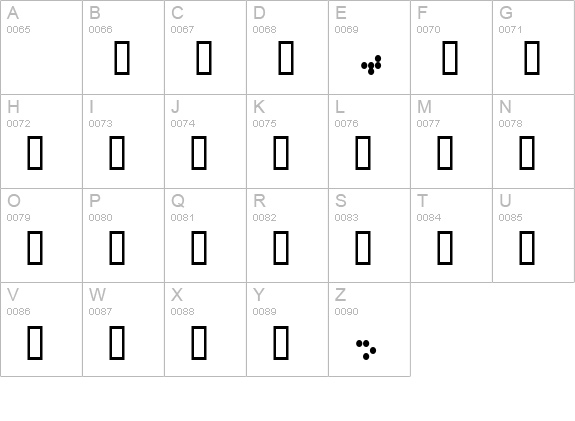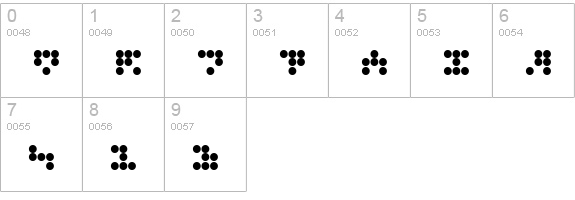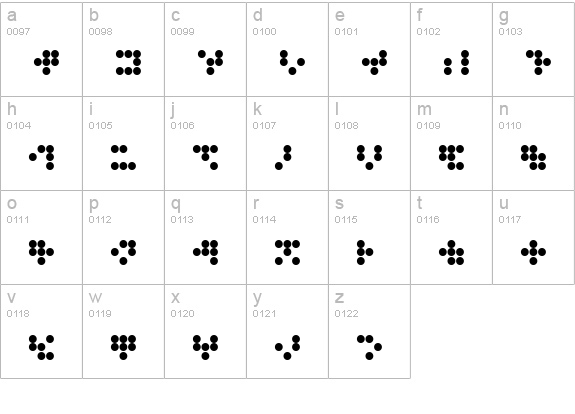
CIRCULAR9 J Font Details
CIRCULAR9 J font is a modern and stylish typeface that exudes sophistication and elegance. Its sleek and rounded design makes it perfect for a wide range of design projects, from logos to posters to branding materials. With its clean lines and unique character shapes, CIRCULAR9 J font is sure to make a statement and capture the attention of viewers. What sets CIRCULAR9 J font apart is not only its aesthetic appeal but also its versatility. Whether you are looking to create a sleek and professional look or a fun and playful design, this font has you covered. Its balanced proportions and careful attention to detail ensure that your text will always look polished and refined. Best of all, CIRCULAR9 J font is available for free download at FontsMarket.com. This means that you can start using this amazing font in your projects right away, without having to worry about any additional costs. Don't miss out on the opportunity to elevate your designs with this stunning typeface. Download CIRCULAR9 J font today and see the difference it can make in your work.